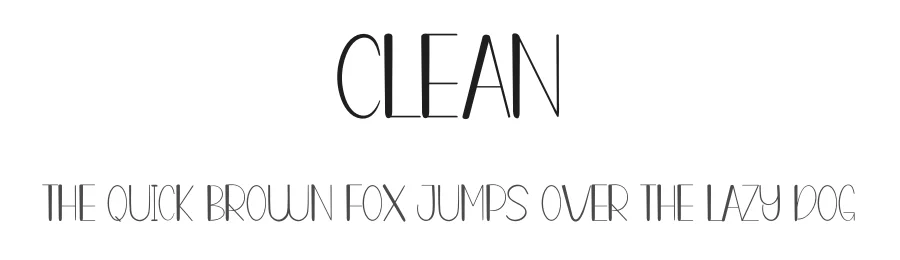
About Hillside Script Font
Clean and minimalist typeface, which is ideal for creating a modern look. Display sans & Script making it a great choice for personalized and decorative designs.
Hillside Script Font is a script font that shines as a display or heading face. Pair it with a clean sans-serif or serif font for body text β the contrast creates a clear hierarchy while the two styles stay balanced and easy to read.
Hillside Script Font